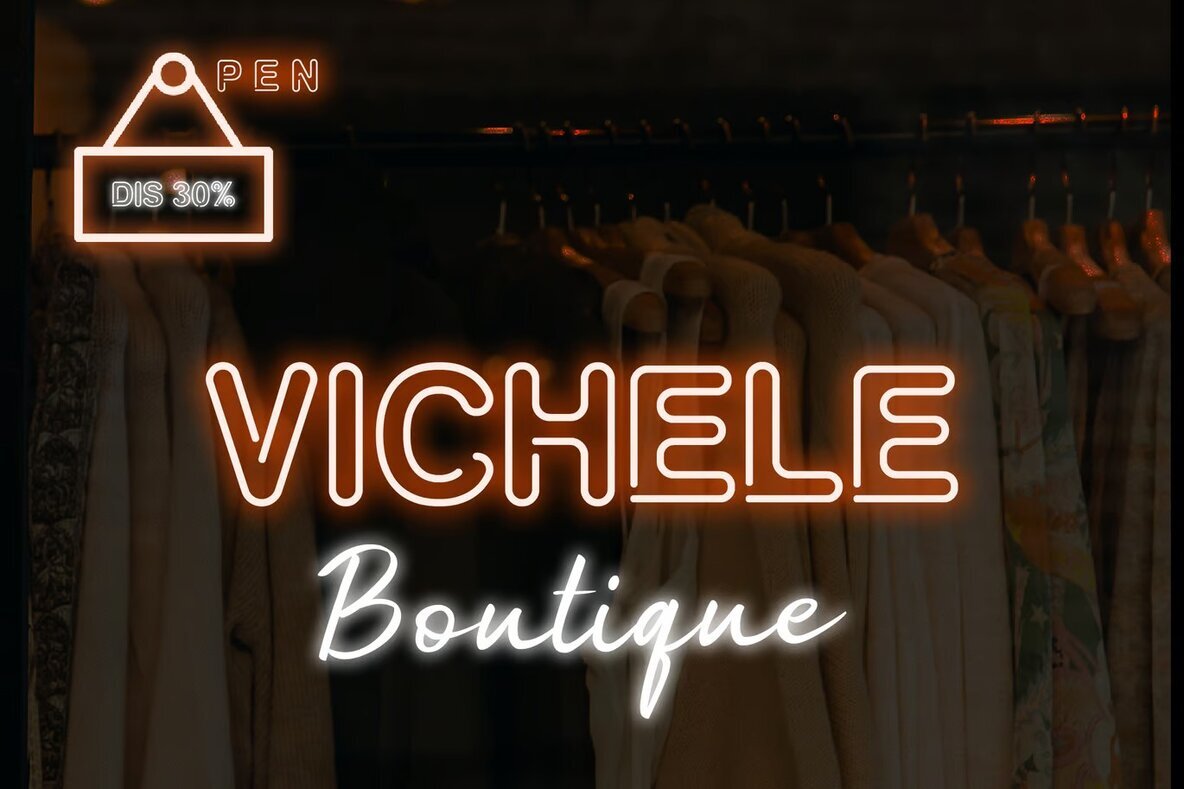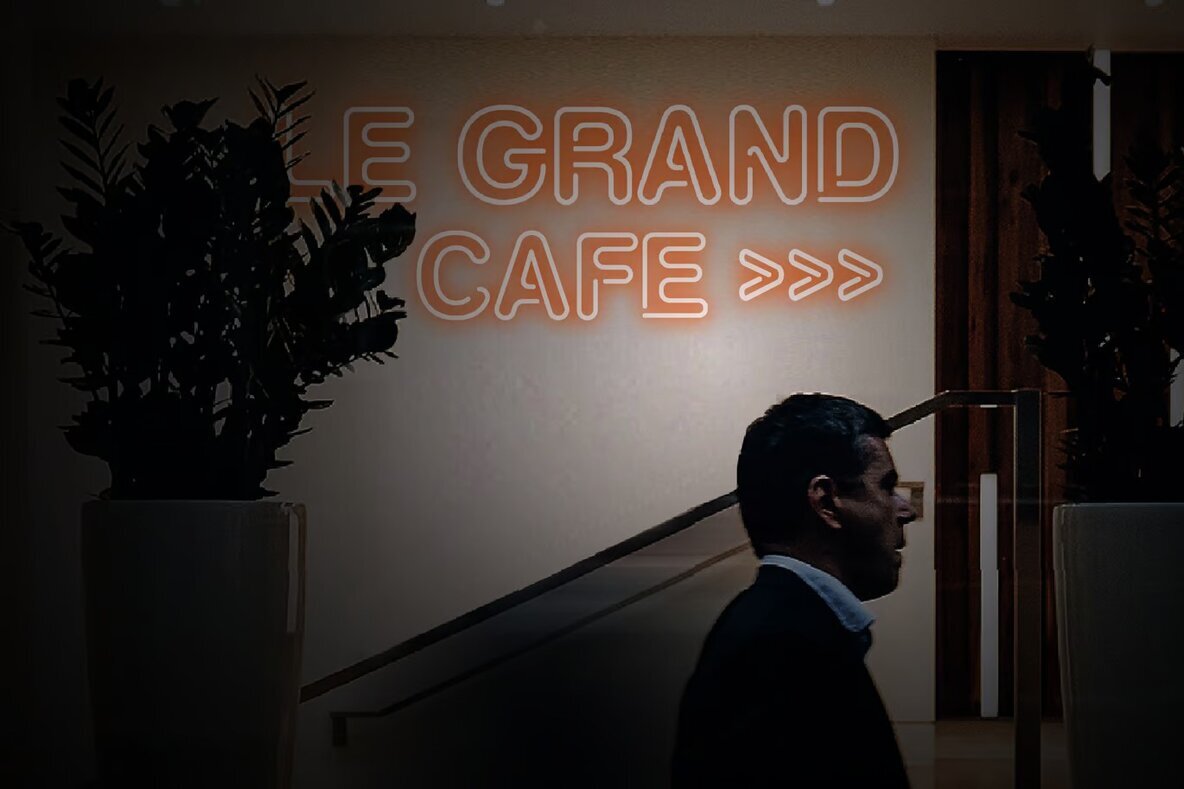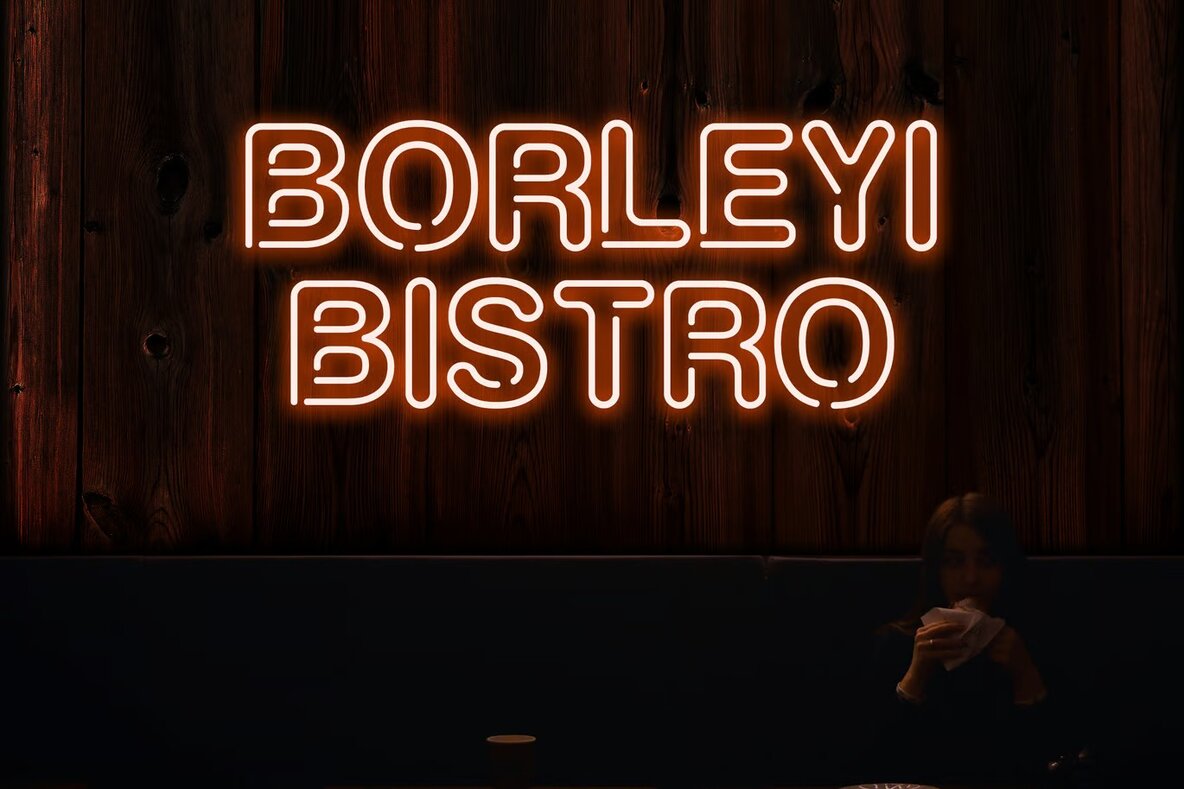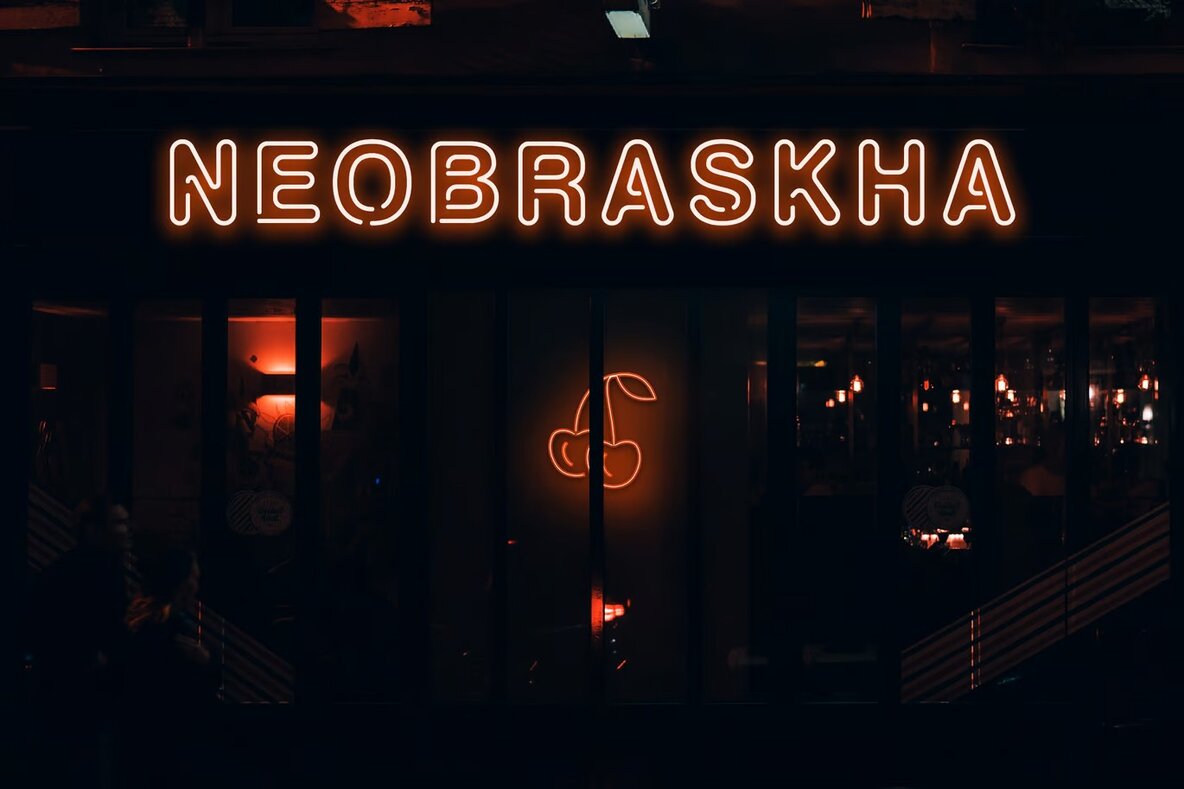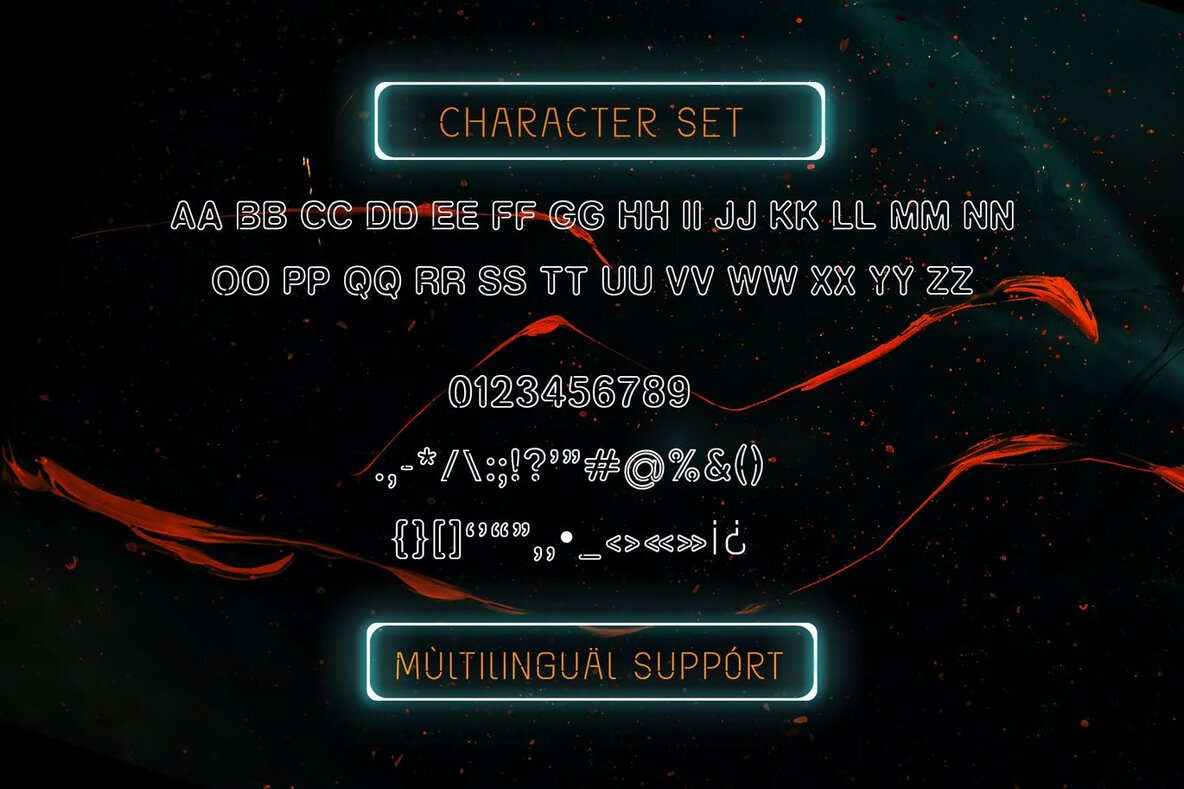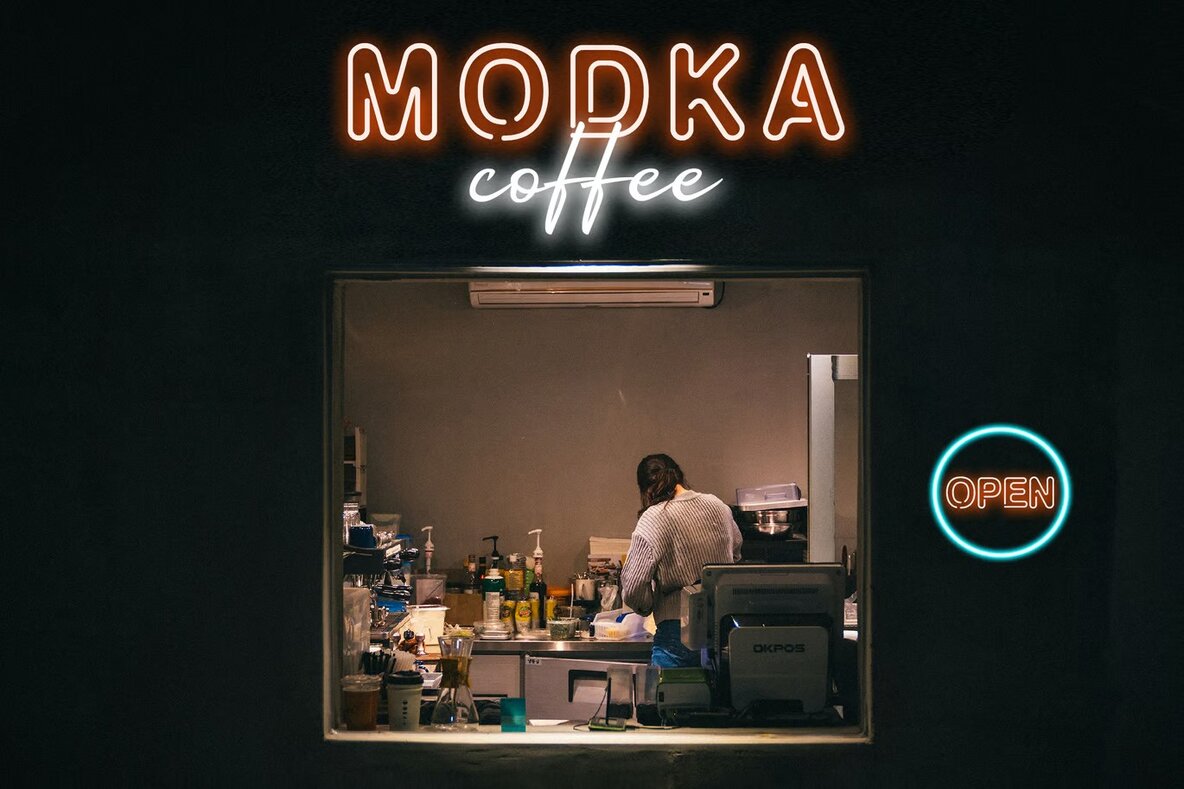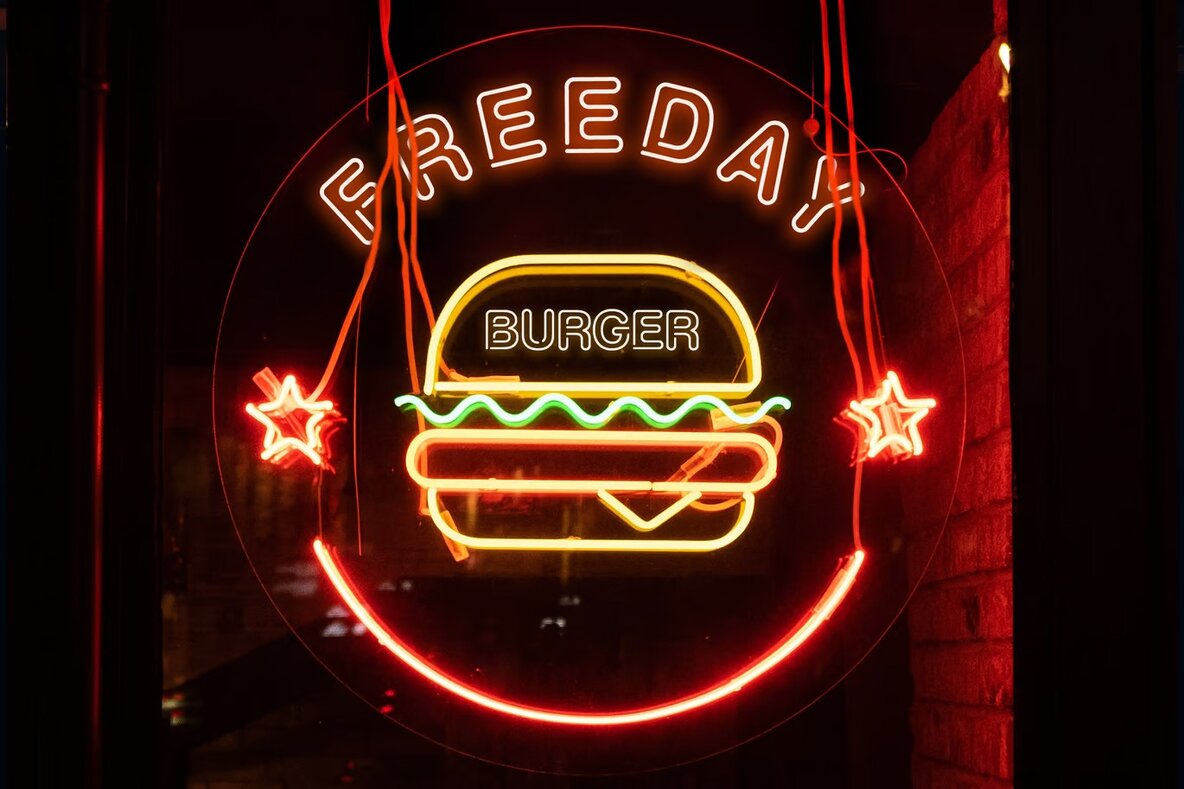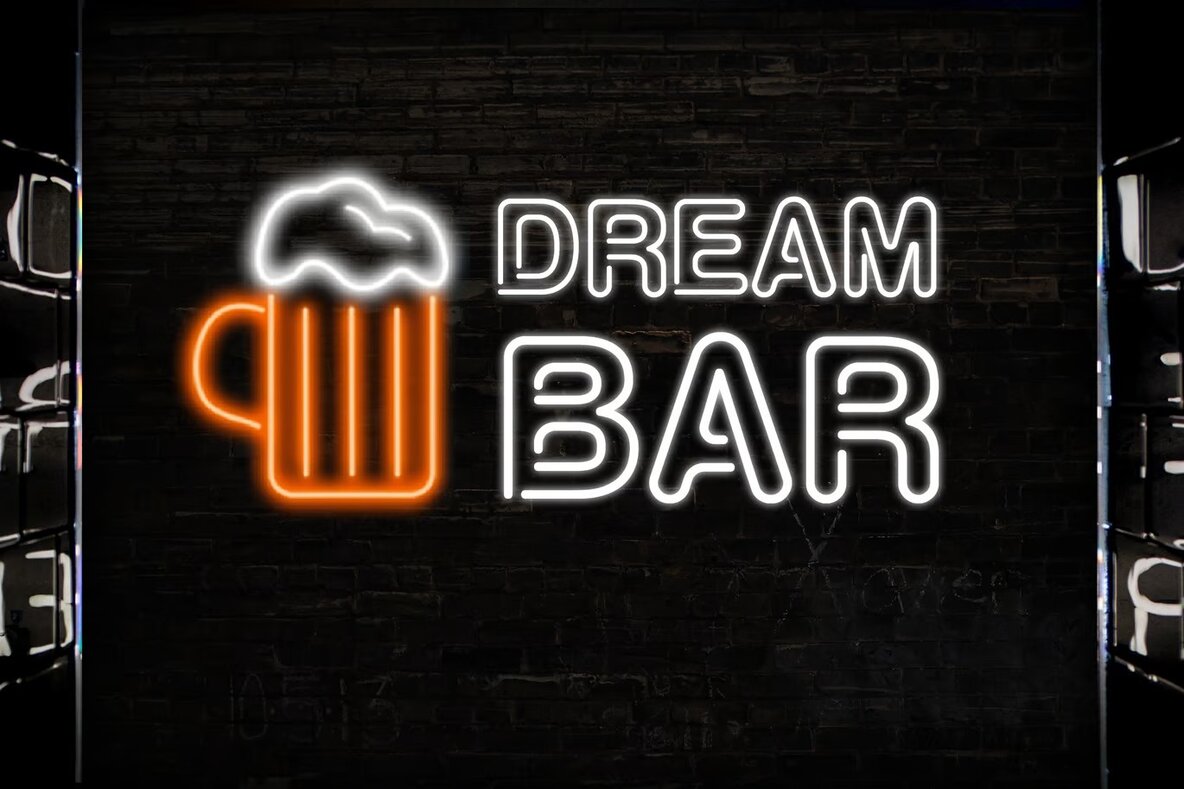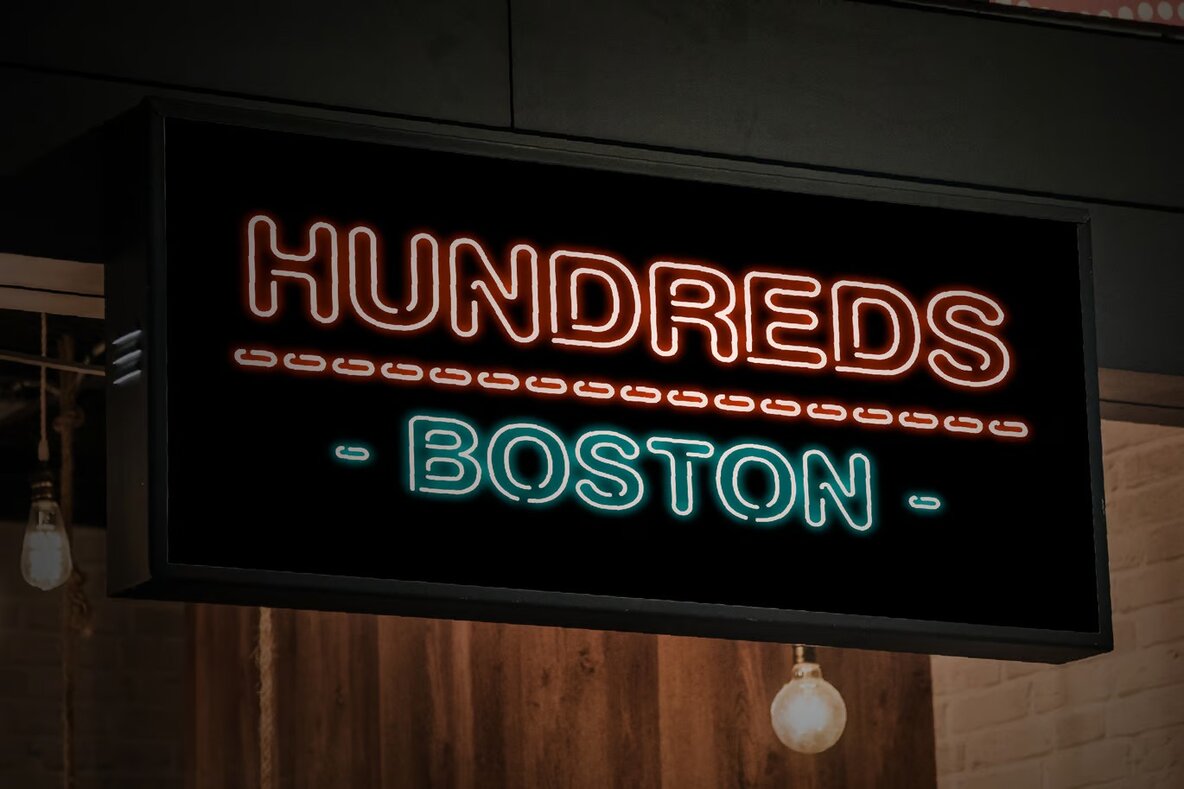
Lumaneon Font
Step into the vibrant world of retro design with Lumaneon, a neon-inspired sans serif font that captures the essence of the 80s era. Its bold and bright letterforms are ideal for a variety of creative projects, ranging from logo branding and editorial layouts to spirited sports designs and dynamic music posters. Whether you're designing for the game industry or crafting unique invitations, Lumaneon delivers a nostalgic yet modern appeal that stands out.
Perfect for modern advertising, art quotes, and event materials, this display font adds a striking visual effect to any project. Lumaneon's versatile style also complements home decor themes and book covers, providing a visual punch that demands attention. Embrace the retro vibe and infuse your designs with the energetic spirit of Lumaneon to make your next project truly unforgettable.